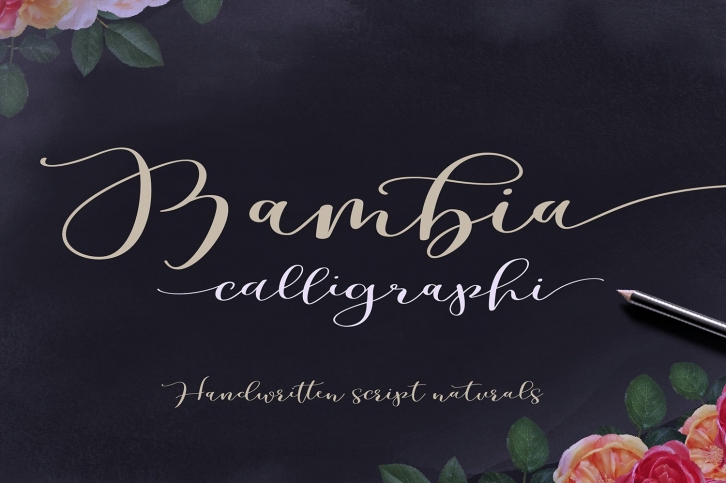
Introduce This is a collection of Bambia fonts available in 2 style scripts and bold line that you can get now! Handwritten variant of renewed calligraphy variants that have been given a combination of brushes and additional ink. This font will look beautiful on all designs, wedding designs, branding materials, blog titles, quotes and invitations, business cards.
OpenType Includes: Swsh Ligatures Alternative Stylistic Set .